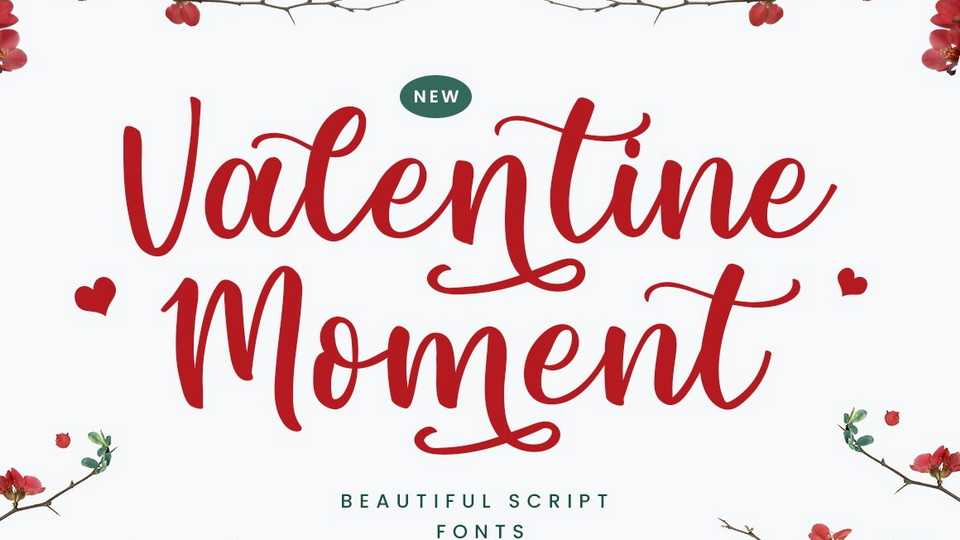
Download Valentine Moments font, a sweet and beautiful calligraphy typeface with a romantic feel. Valentine Moments font is suitable for use on invitations, lettering design, wedding card, t-shirt designs, logotype, valentine, love quotes, fashion, watermarks, branding.